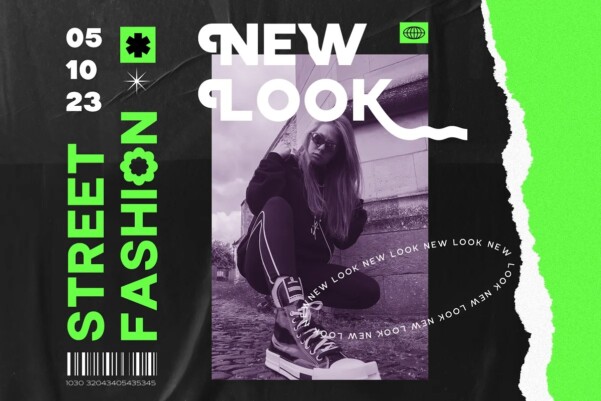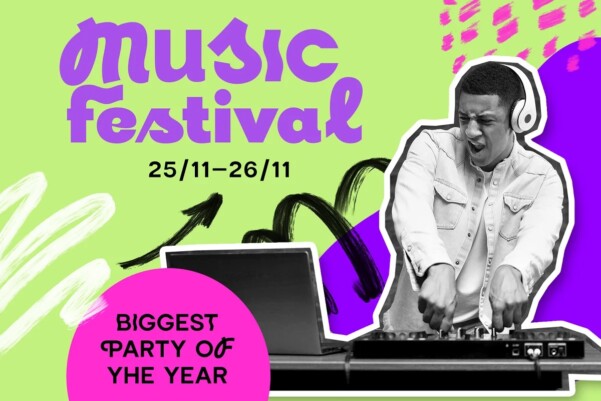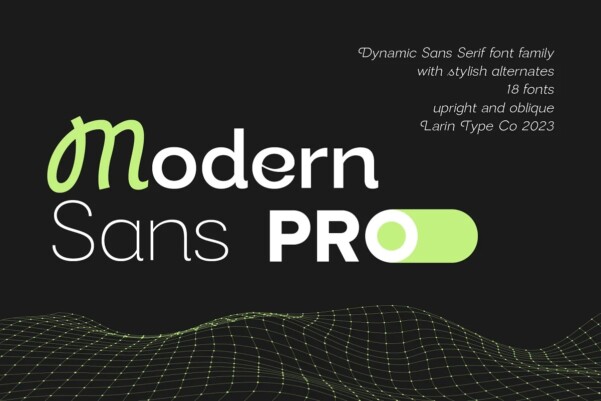
Modern Sans Pro Font
Modern Sans Font this is a wonderful font family that includes 9 weights from thin to black and two styles basic and oblique.
In this font you will find a classic and universal grotesque that will perfectly cope with a variety of tasks and will always look stylish and modern, as well as many altenates for Upper and Lowercase, with which you can play and find the most incredible and stunning option.
This universal font covers a huge range of possibilities for the design and creation of your project. With it, you can create logos, labels, use in advertising, packaging, website, branding, book and magazine covers, cosmetics, banners, posters, titles, descriptions and much more. This easy-to-use font has OpenType features.
Following international symbols support: ÀÁÂÃÄÅĄÇĆÈÉÊËĘÌÍÎÏÐÑŃŁÒÓÔÕÖØÙÚÛÜŚŠŸÝŹŻŽßàáâãäåçèéêëìíîïðñòóôõöøùúûüýÿąćęłńśšźżž